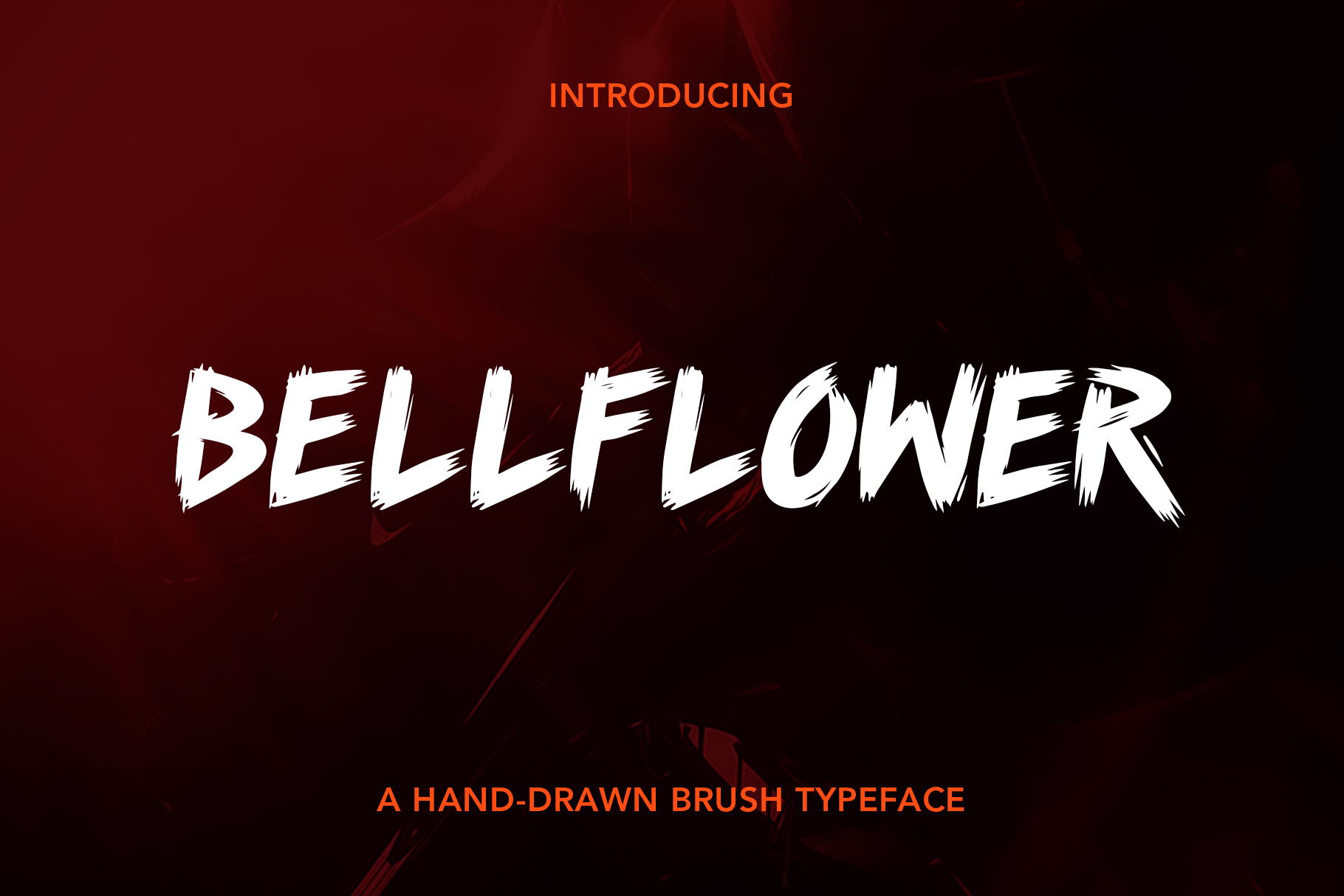
Bellflower Brush Font
A hand-drawn, brush style font. Inspired by 80's skateboard art. Uppercase set with regular and italic variations. International glyphs and punctuation included.